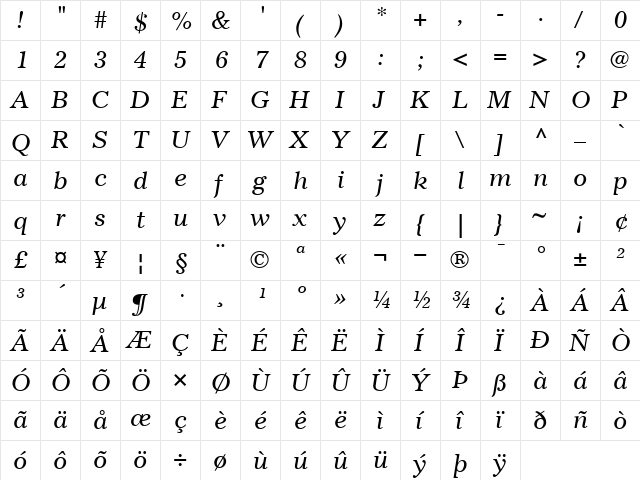
GazetteLH RomanItalic
Design Context for GazetteLH Typeface
GazetteLH is a composed and adaptable typeface that performs quietly and consistently across a wide range of design contexts. The slanted form adds forward momentum and visual energy.
Pro Tip: Try GazetteLH for annotation and caption copy alongside an upright companion — the contrast in angle creates a dynamic but ordered typographic system.